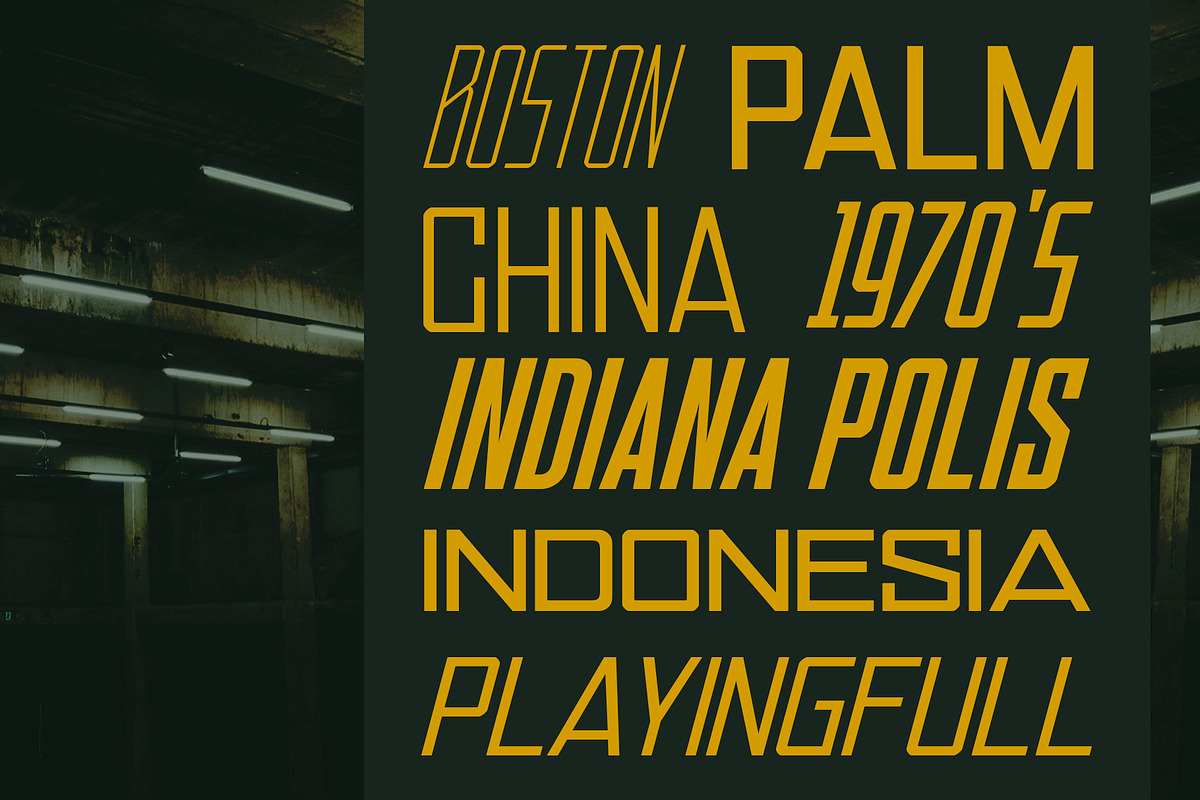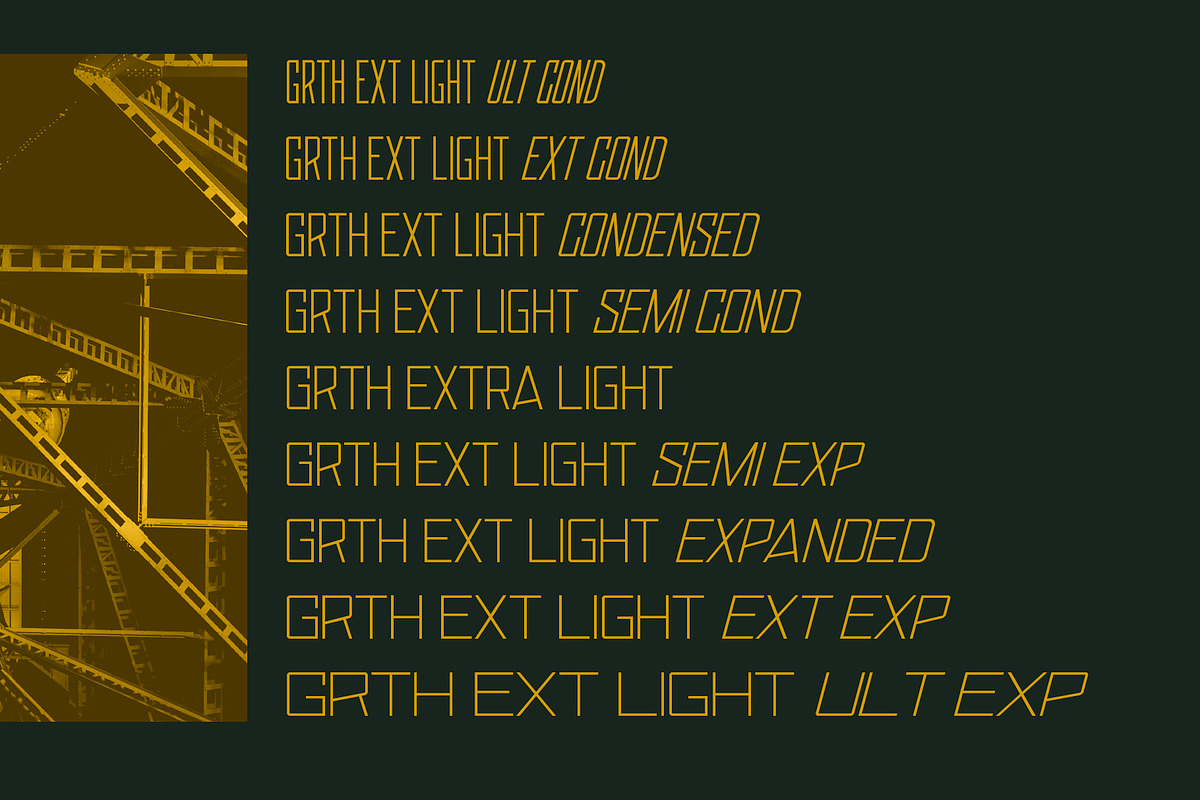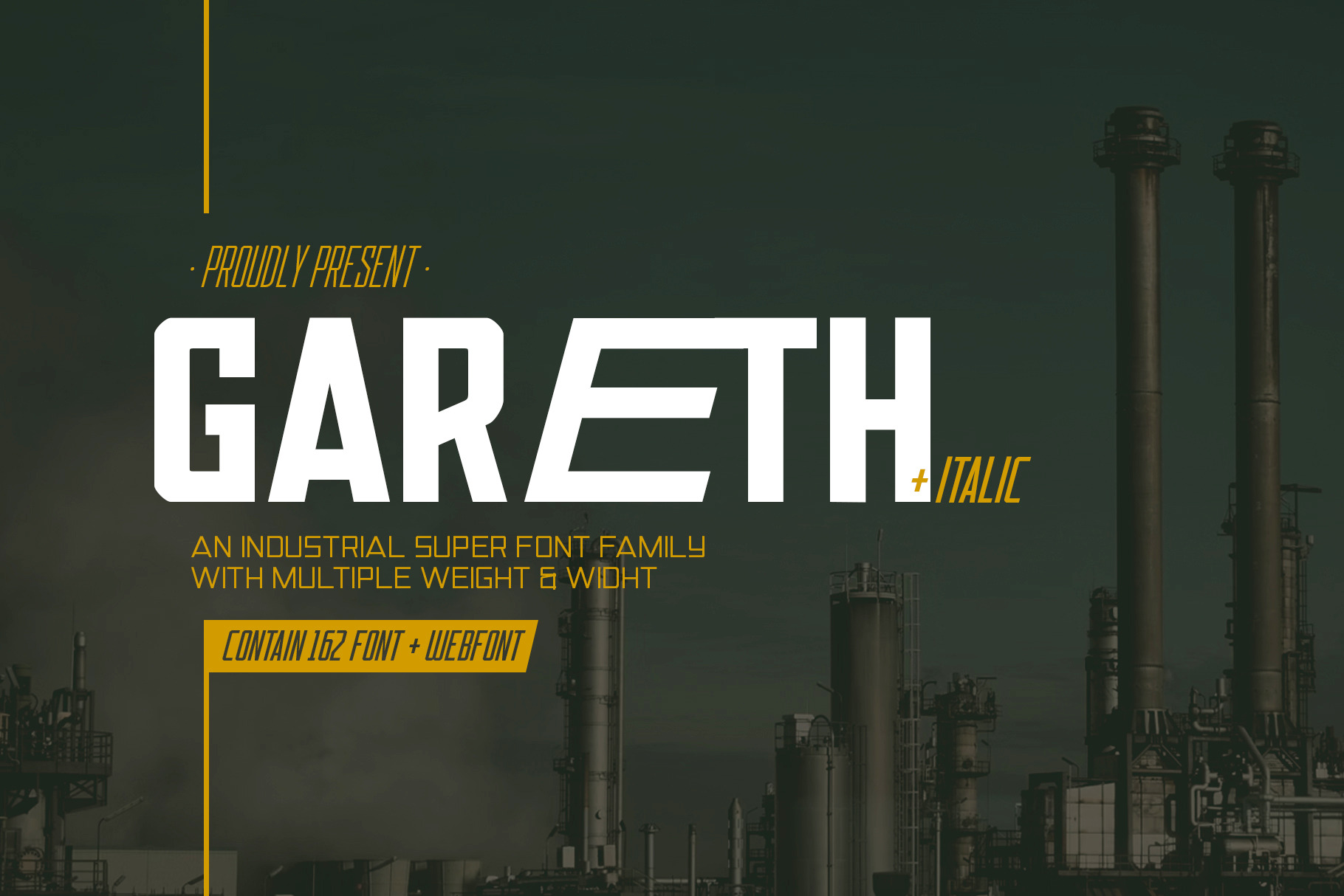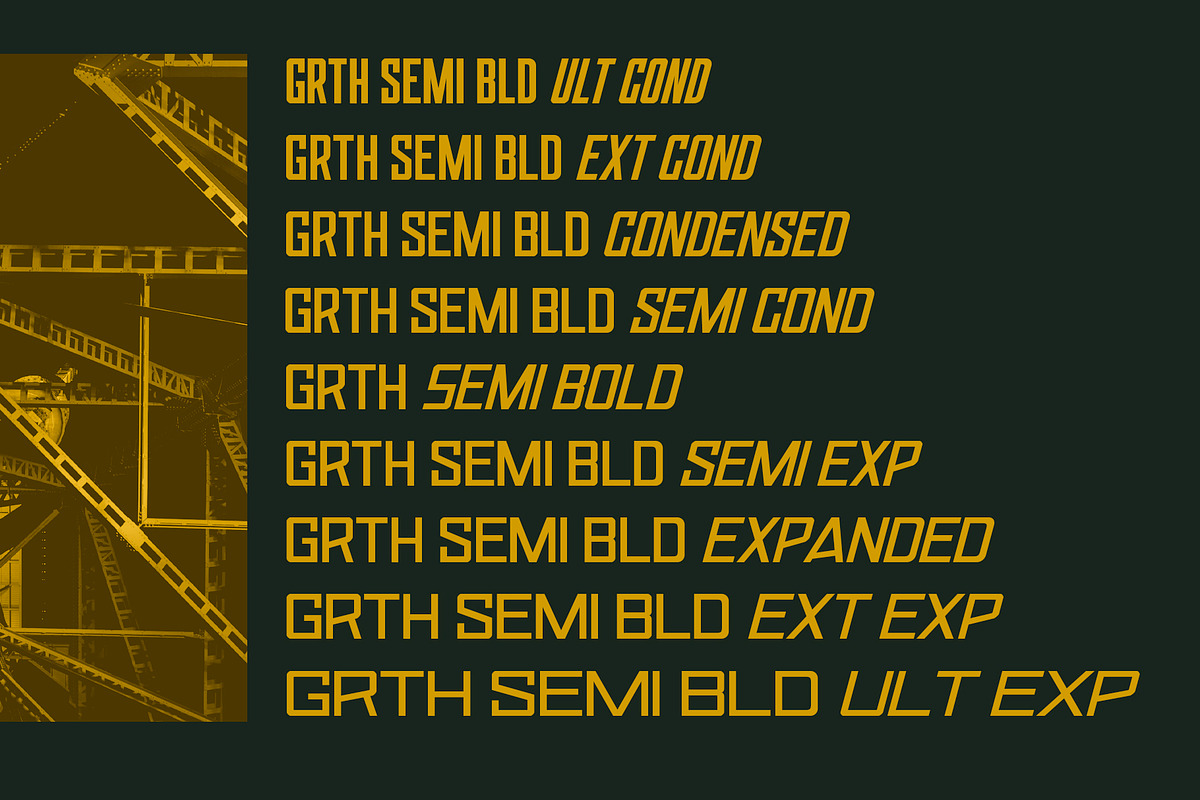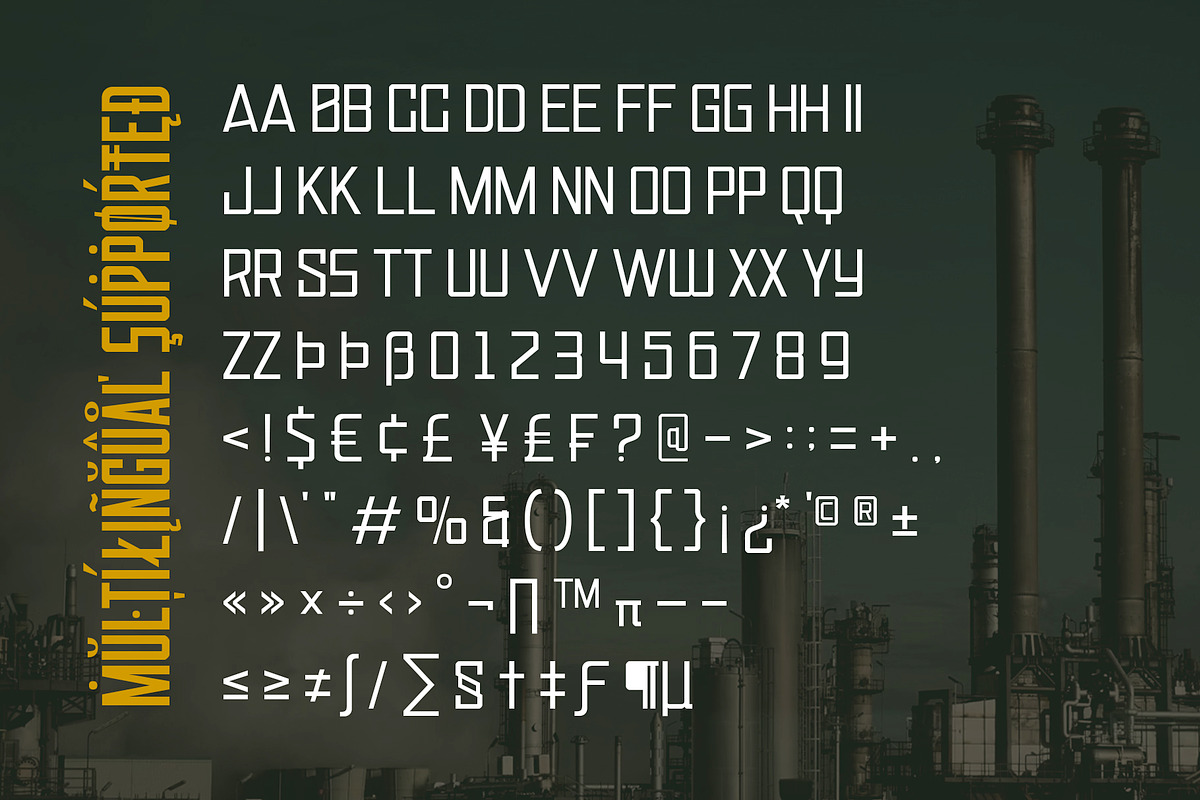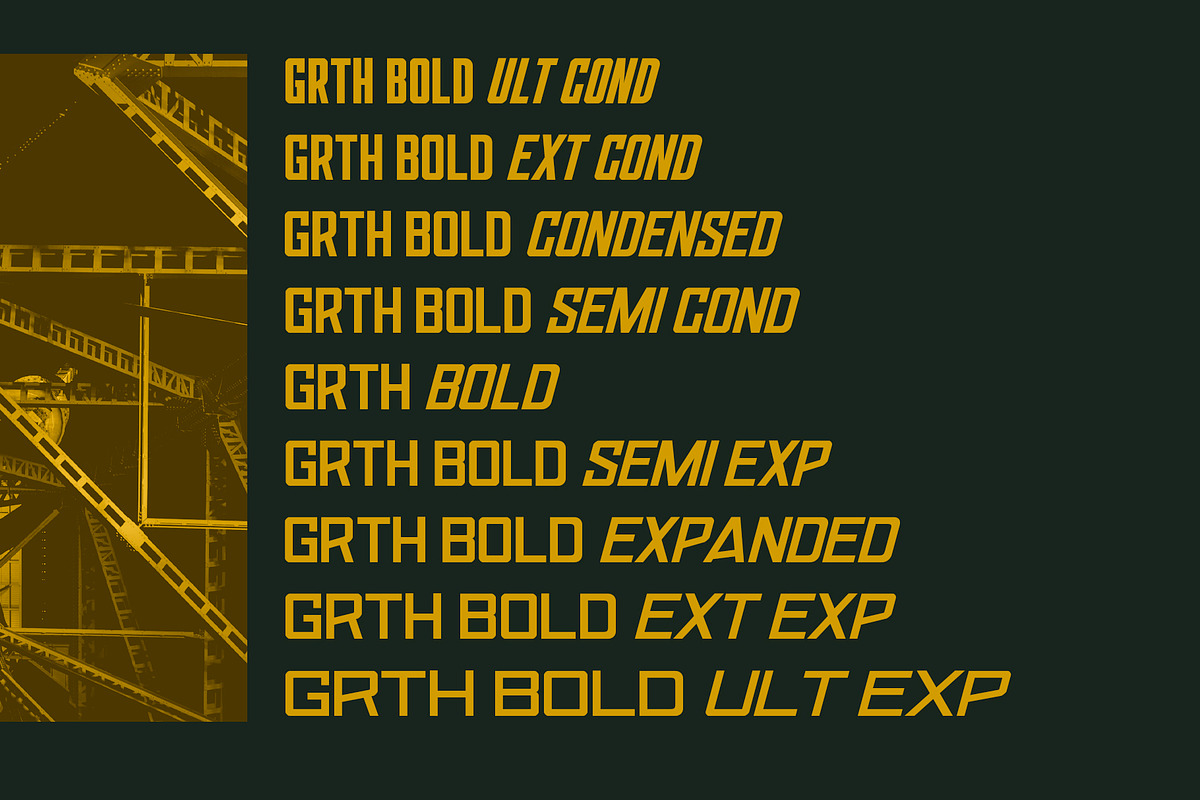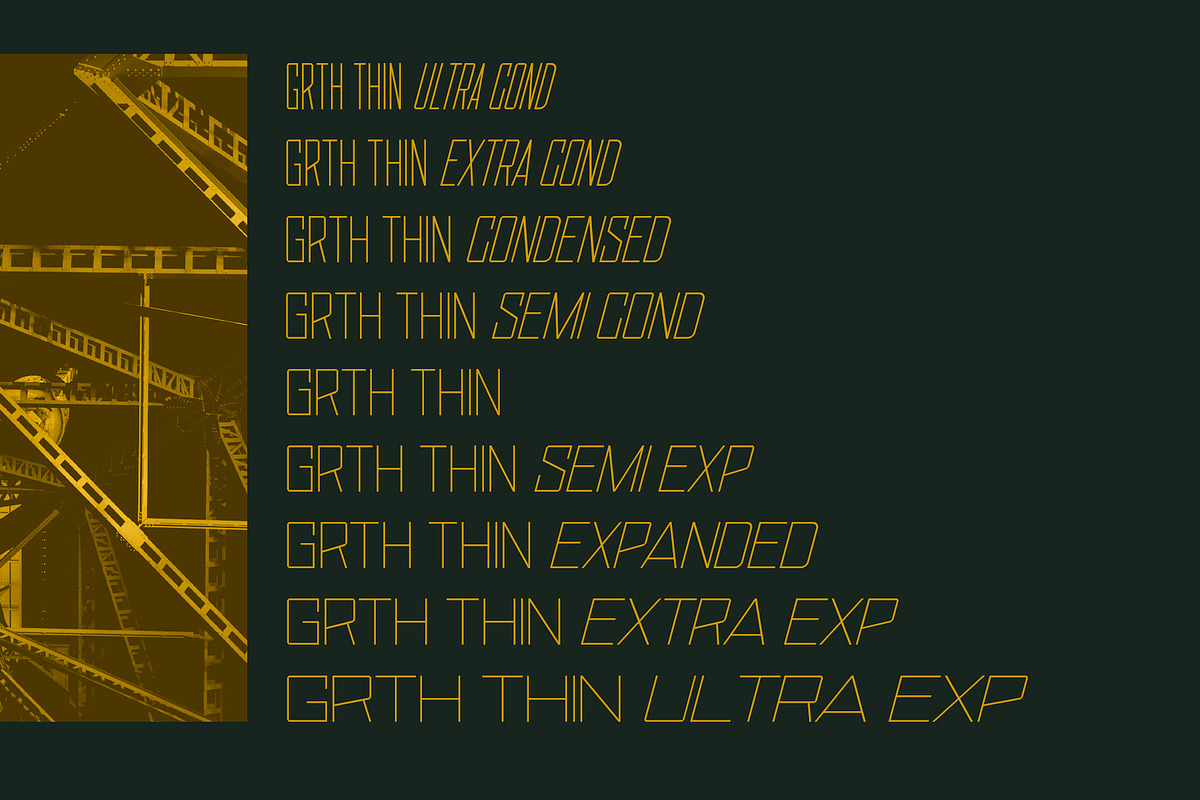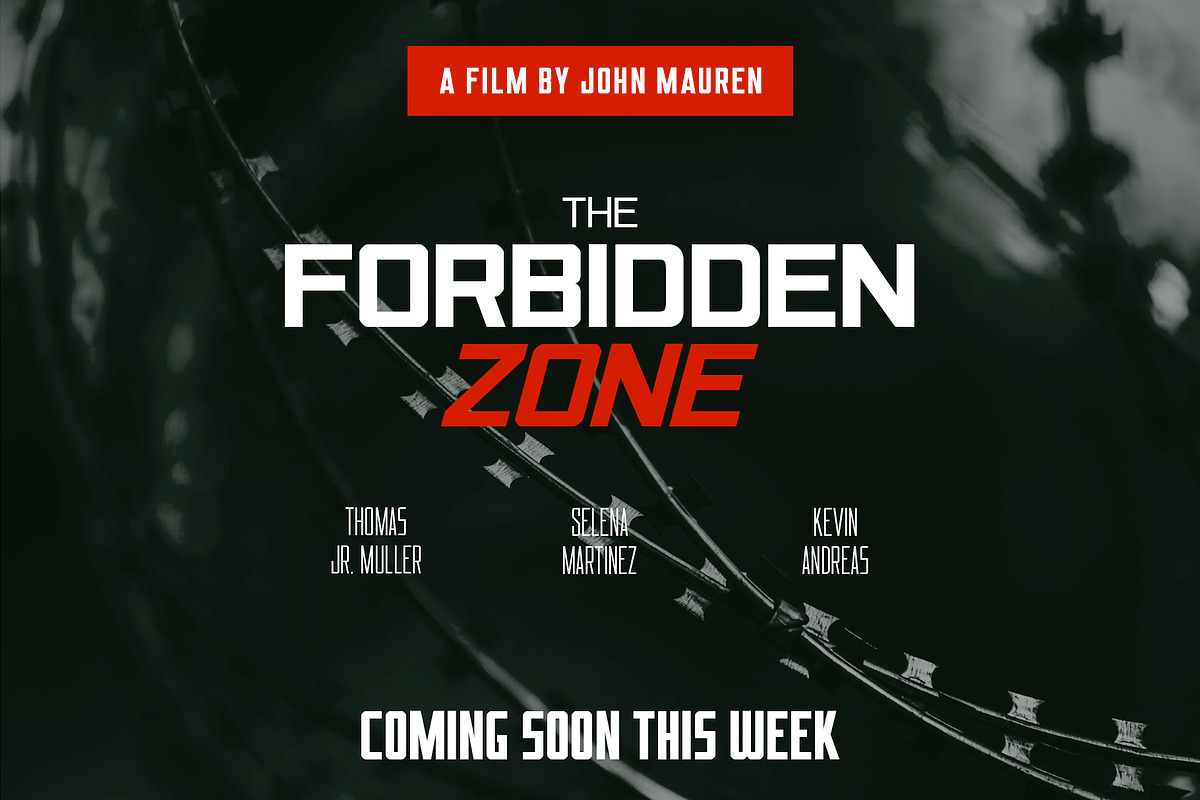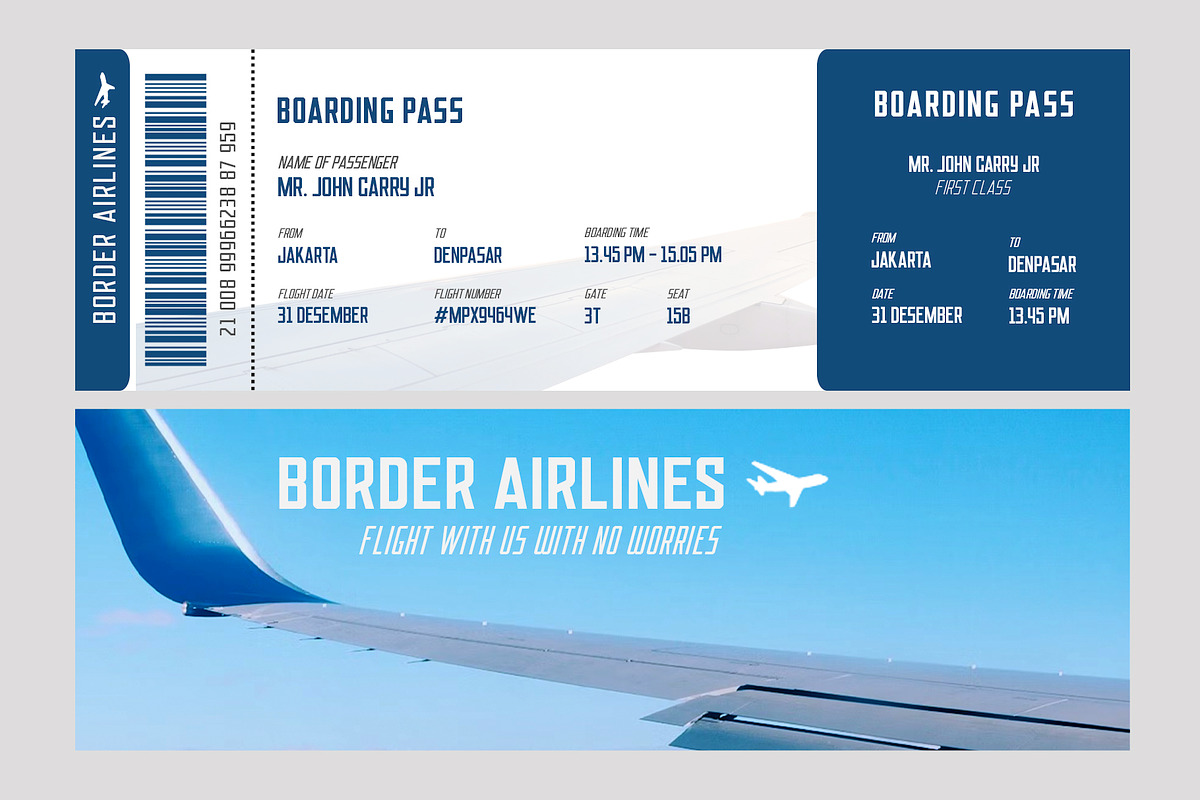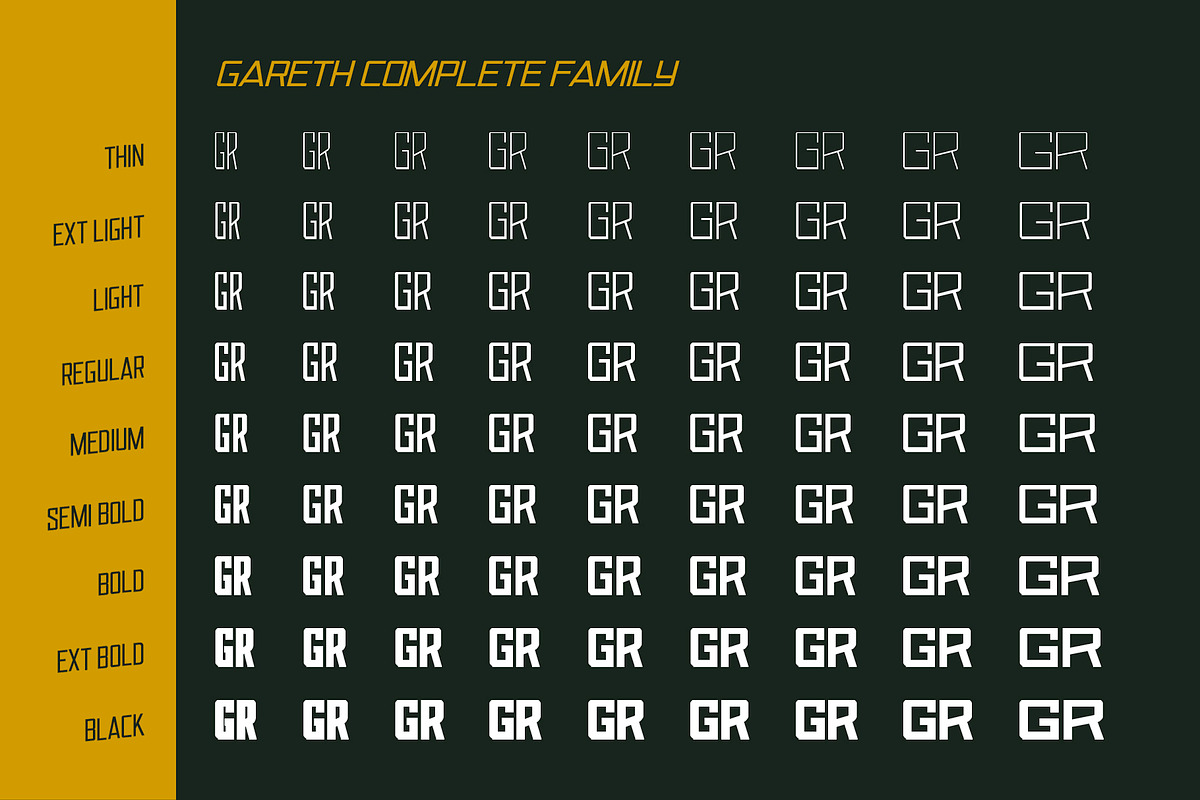
Gareth Font Family (Full Pack)
Say Hello To Our New Arrival
GARETH Super Font Family
Gareth is all caps font that have very strong character and firm line. Gareth is very suitable for tittle or headliner any project that you want to create even that is poster, magazine tittle, also suitable for any digital project like game tittle, video/content tittle or anything.
super font family that was contained 162 font from regular/upright to slanted/italic, from ultra condensed (50) to ultra expanded (200), from Thin (100) to Black (900) and every single font had Webfont included. You need to download all part of the font to access all weight, but no for width because every single part was contained from ultra condensed to ultra expanded.
Multilingual Support Like our other font this font covered basic latin language. See list :Chiga, Congo Swahili, Cornish, Croatian, Czech, Danish, English, Estonian, Faroese, Filipino, Finnish, French, Galician, German, Gusii, Hungarian, Icelandic, Indonesian, Irish, Italian, Kabuverdianu, Kalenjin, Kinyarwanda, Luo, Luyia, Machame, Makhuwa-Meetto, Makonde, Malagasy, Malay, Manx, Morisyen, North Ndebele, Norwegian Bokmål, Norwegian Nynorsk, Nyankole, Oromo, Portuguese, Romansh, Rombo, Rundi, Rwa, Samburu, Sango, Sangu, Sena, Shambala, Shona, Slovak, Slovenian, Soga, Somali, Spanish, Swahili, Swedish, Swiss German, Taita, Teso, Turkmen, Vunjo, Zulu